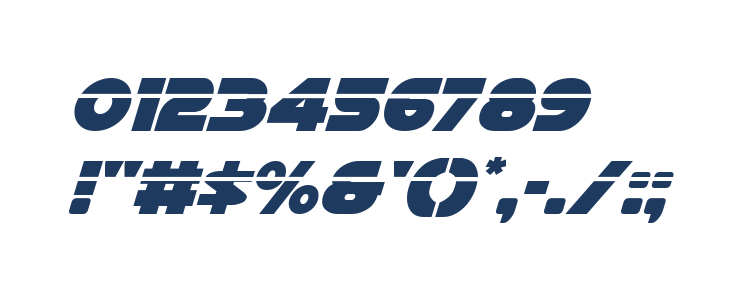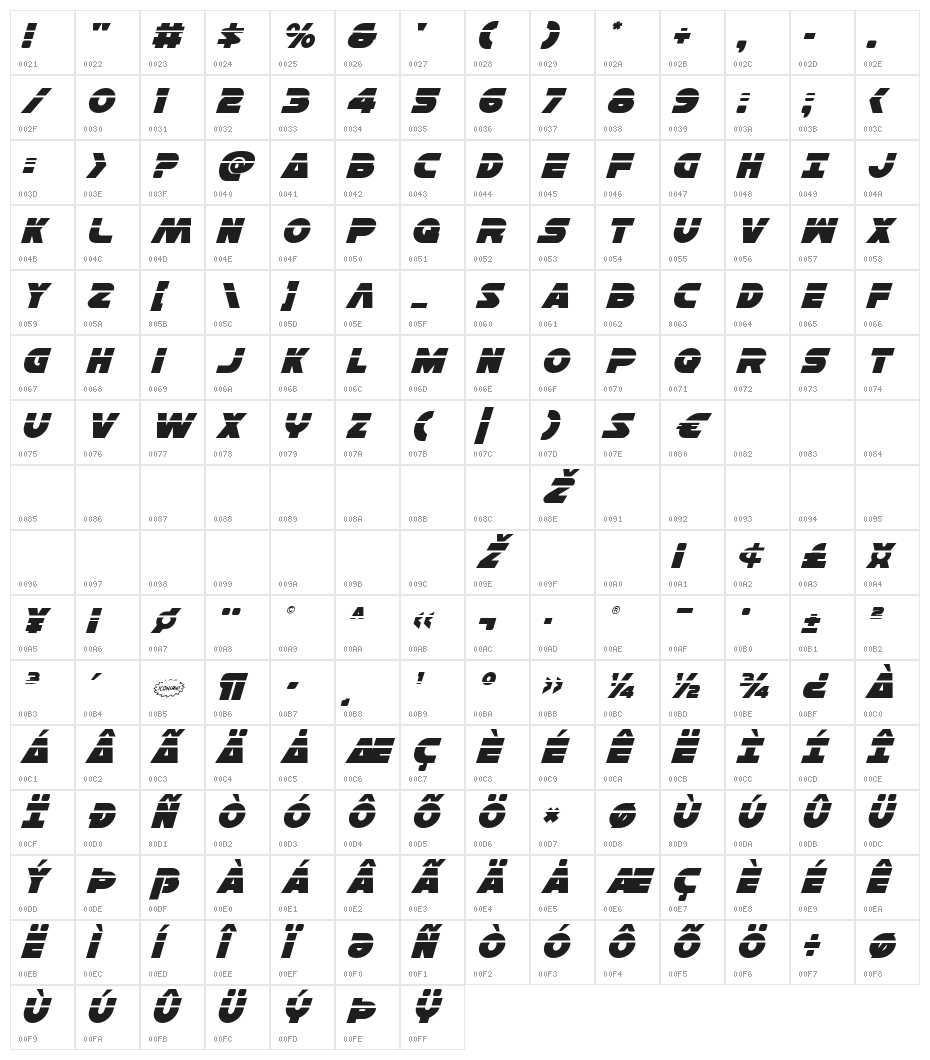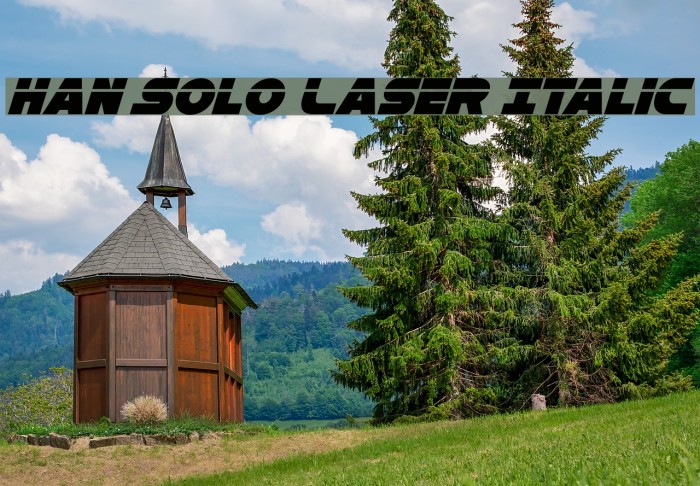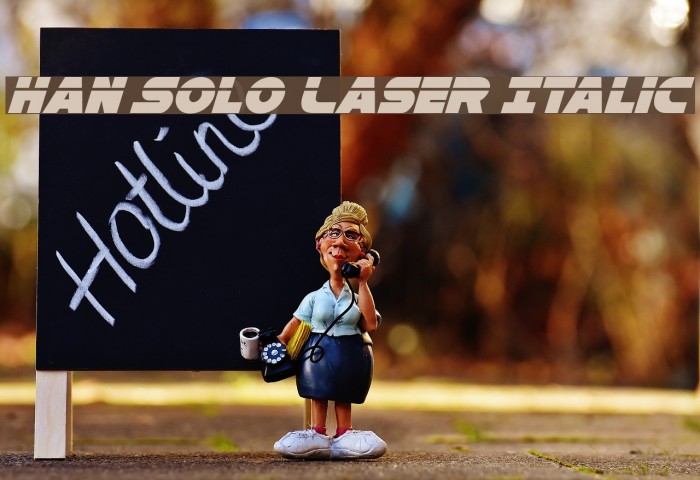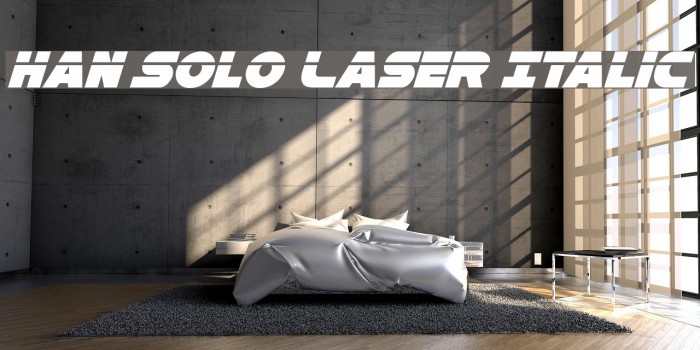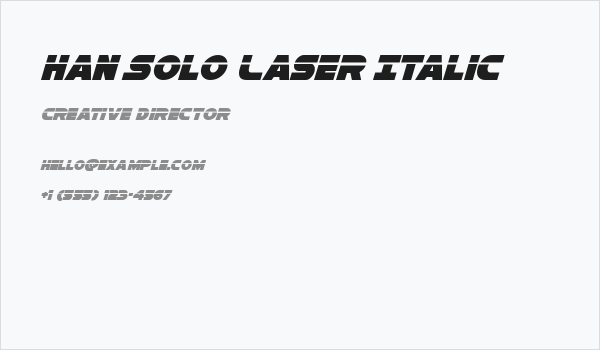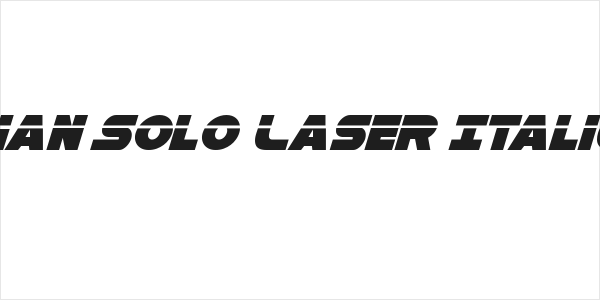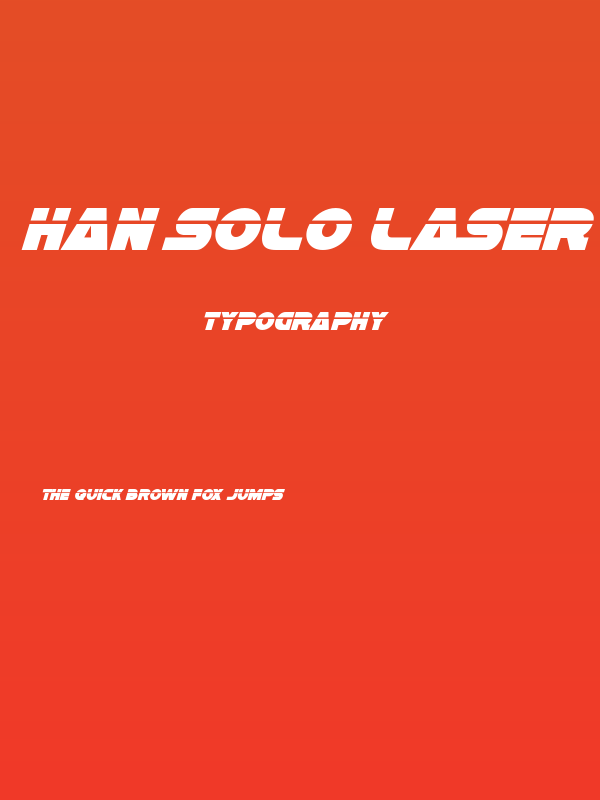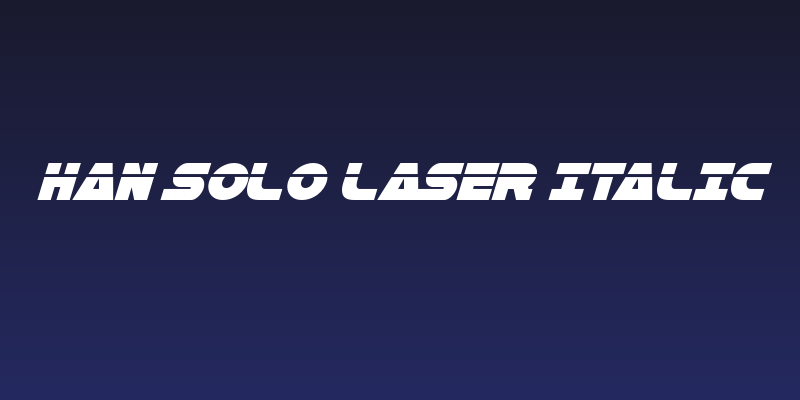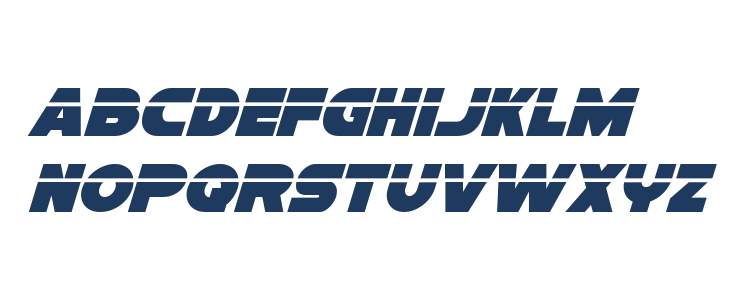
Han Solo Laser Italic Font
Han Solo Laser Italic Description
This font features a bold and futuristic design with sharp, angular edges and a distinct italic slant. The characters are heavily stylized, with a strong emphasis on geometric shapes and a dynamic, forward-leaning posture. The uppercase and lowercase letters maintain a consistent style, creating a cohesive and visually striking appearance. The numbers and special characters are equally bold and stylized, ensuring uniformity across all glyphs. This font's unique design is reminiscent of science fiction and modern technology themes, making it ideal for projects that require a bold and impactful visual statement.
| Proposed Projects | Ideal for sci-fi themed designs, technology branding, video game titles, and futuristic posters. |